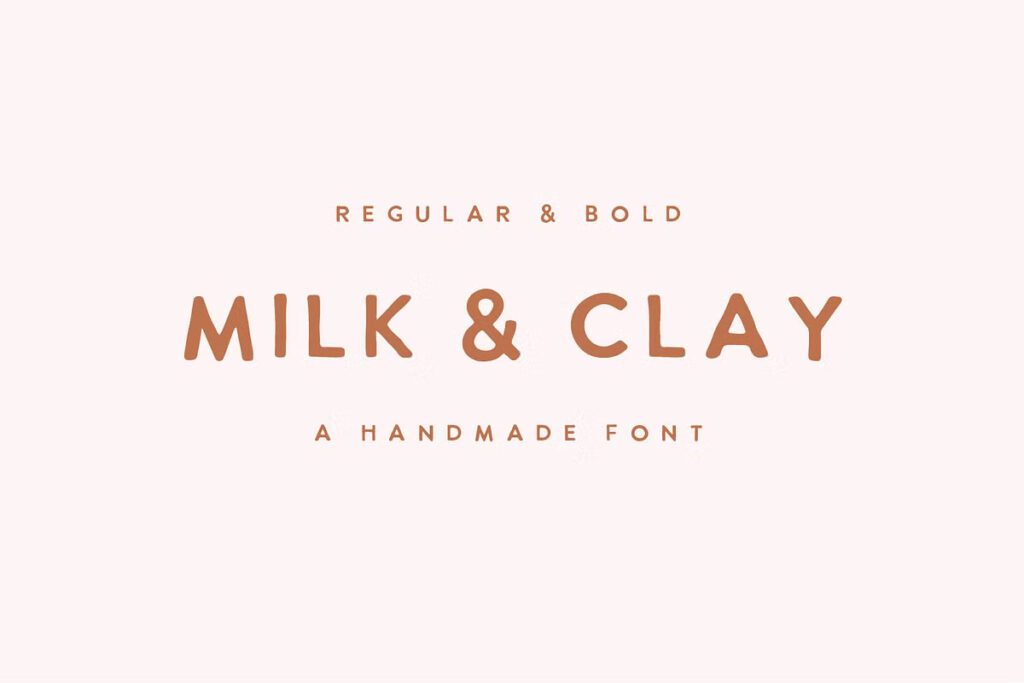
MILK & CLAY: The Perfect Handwritten Sans Serif for Your Designs
If you’re looking for a font that adds a personal, handmade touch to your projects, MILK & CLAY is your ideal choice. This handwritten sans serif font is both trendy and versatile, designed to bring warmth and uniqueness to a variety of design applications.
Whether you’re designing for handmade products, ceramics, or creating the perfect logo, MILK & CLAY adds that effortlessly stylish, handmade vibe to every project.
What Makes MILK & CLAY Special?
MILK & CLAY comes in both Regular and Bold styles, allowing for versatility across different mediums. Its handcrafted nature shines in the details, making it perfect for personalising everything from branding materials to Instagram quote text. Here’s what’s included in the bundle:
Ideal for Handmade & Artistic Projects
This font is particularly well-suited for projects with a handmade or artistic aesthetic. It’s perfect for:
Ceramics: Personalize your pottery or craft branding with a unique touch.
Branding & Logos: Bring an authentic, handcrafted feel to your branding designs.
Social Media: Ideal for Instagram quotes or other visually impactful social media posts that need a clean, yet personal touch.
If you’re looking to add a handwritten touch to your designs, MILK & CLAY is the perfect choice. With its versatile style and clean aesthetic, it will effortlessly enhance any project you’re working on.